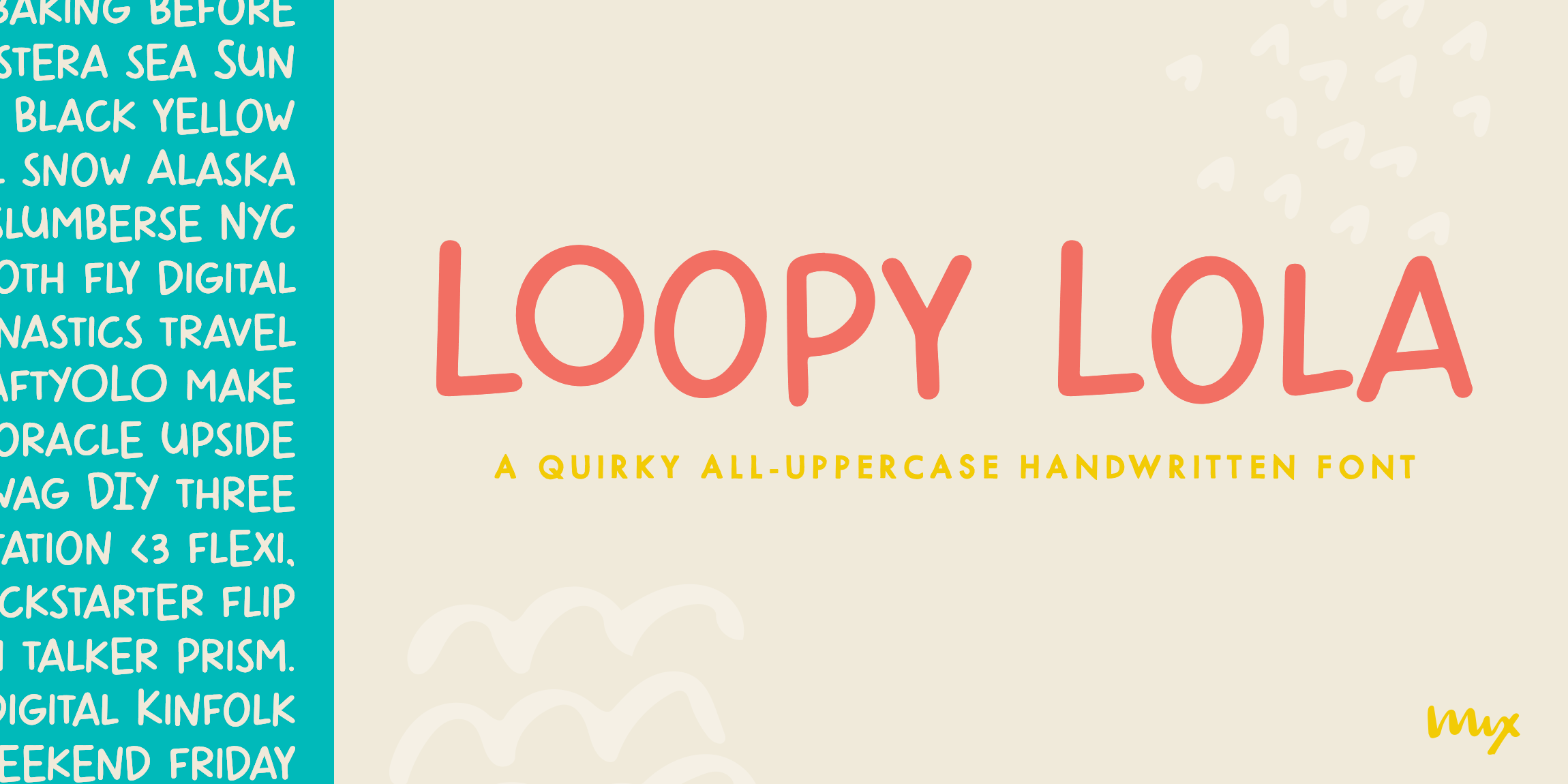
Loopy Lola Font is perfect for playful children's branding, whimsical party invitations, fun ice cream shop signage, creative toy packaging, cheerful greeting cards, bouncy entertainment logos, quirky social media graphics, and joyful birthday celebrations. This delightfully animated typeface excels in family-friendly applications, entertainment designs, and any project requiring spirited playfulness that captures the essence of childhood wonder and carefree happiness through bouncing visual energy.
What makes Loopy Lola Font exciting is its irresistible ability to bring instant joy and playful energy through delightfully looping letterforms that dance with childlike enthusiasm and unbridled creativity. The font features whimsically crafted characters with bouncing curves and spirited loops that evoke feelings of pure fun and spontaneous laughter, making it ideal for brands seeking to connect with families and communicate through joyful visual language. Its animated presence ensures immediate recognition of playful authenticity and cheerful celebration.
Loopy Lola Font family includes multiple weights and styles: Regular, Bold, Light, Medium, Italic variations, and extra-loopy alternates with bouncing embellishments and playful decorative elements. Each family member maintains the distinctive spirited character while offering comprehensive design options for fun-focused campaigns, from gentle playful text to bouncing headlines that establish joyful connections and cheerful brand experiences through delightfully animated typography.
Whether you're designing family entertainment brands or creating playful celebration campaigns, Loopy Lola Font Free Download provides the perfect typography solution for joyful branding needs. This font transforms ordinary text into delightful animated expressions that communicate pure happiness and spirited fun. Children's brands and entertainment companies choose this typeface for its ability to convey playful joy through whimsically crafted letterforms that loop through designs with infectious enthusiasm and celebrate the beautiful spirit of childhood wonder.